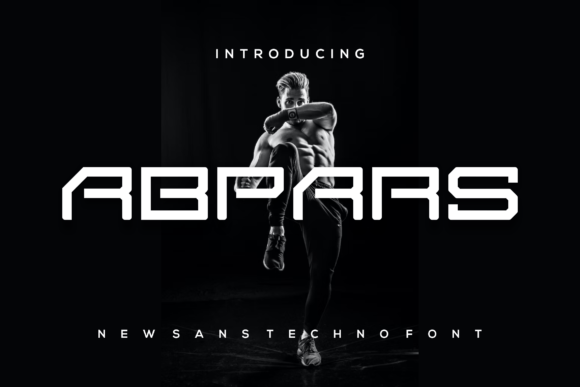
The Next Level of Creativity: Abpars Font
Remember that moment when you’re working on a project and you just can’t seem to find the right font to bring your design to life? The cursor blinks, and you scroll through font after font, but nothing seems to capture the essence of your vision. That’s where Abpars Font comes in – a modern, bold display font that’s about to revolutionize your design game.
Abpars Font is more than just a font; it’s an experience. Its cyberpunk, futuristic techno-mecha style transports you to a world of innovation and sophistication. Whether you’re working on a website, poster, logo, or any other project, this font brings a touch of cutting-edge aesthetics that’s sure to elevate your design to the next level.
As a designer, you understand the importance of finding the perfect font to convey your message. That’s why Abpars Font is a valuable addition to your toolkit – it’s the perfect solution for designers who want to push the boundaries of creativity and make a statement with their work.
Key Features of Abpars Font
- Unique Characteristics: Abpars Font features a unique blend of modern and traditional elements, with a focus on geometric shapes and clean lines. Its distinctive style makes it ideal for use in branding, advertising, and editorial design.
- Font Weight and Style: Abpars Font is available in various weights, including light, regular, medium, bold, and black. It also features a range of styles, including italic and oblique.
Review of Abpars Font
Overall, I’m quite impressed with the Abpars Font. It’s a beautiful, modern sans-serif font that can add a touch of sophistication to any design project. ✨ Here are a few things that I think work well:
- Legibility: Abpars Font is incredibly easy to read, even at smaller font sizes.
- Flexibility: It’s suitable for a wide range of design projects, from body text to headings and even signage.
- Style: The font’s clean and minimalist aesthetic makes it a great choice for modern designs.
However, as with any font, there are some limitations to consider. ⚠️ Here are a few things that I think could be improved:
- Lack of italic and bold styles: While the font is available in various weights, it would be great to see more variations, such as italic and bold styles.
- Not suitable for display use: Abpars Font is best used for body text and smaller headings, as it can become overwhelmed at larger font sizes.
Overall, I think Abpars Font is a great choice for designers who want a clean and modern sans-serif font. While it may have some limitations, its legibility and flexibility make it a great addition to any design project.
Tips for Getting the Most Out of Abpars Font
Abpars Font is a highly customizable font, making it perfect for designers and marketers who want to add a touch of sophistication to their projects.
Some tips for getting the most out of Abpars Font include:
- Experiment with different font sizes and colors to create a visually appealing design.
- Use Abpars Font in combination with other design elements, such as images and graphics, to create a cohesive look.